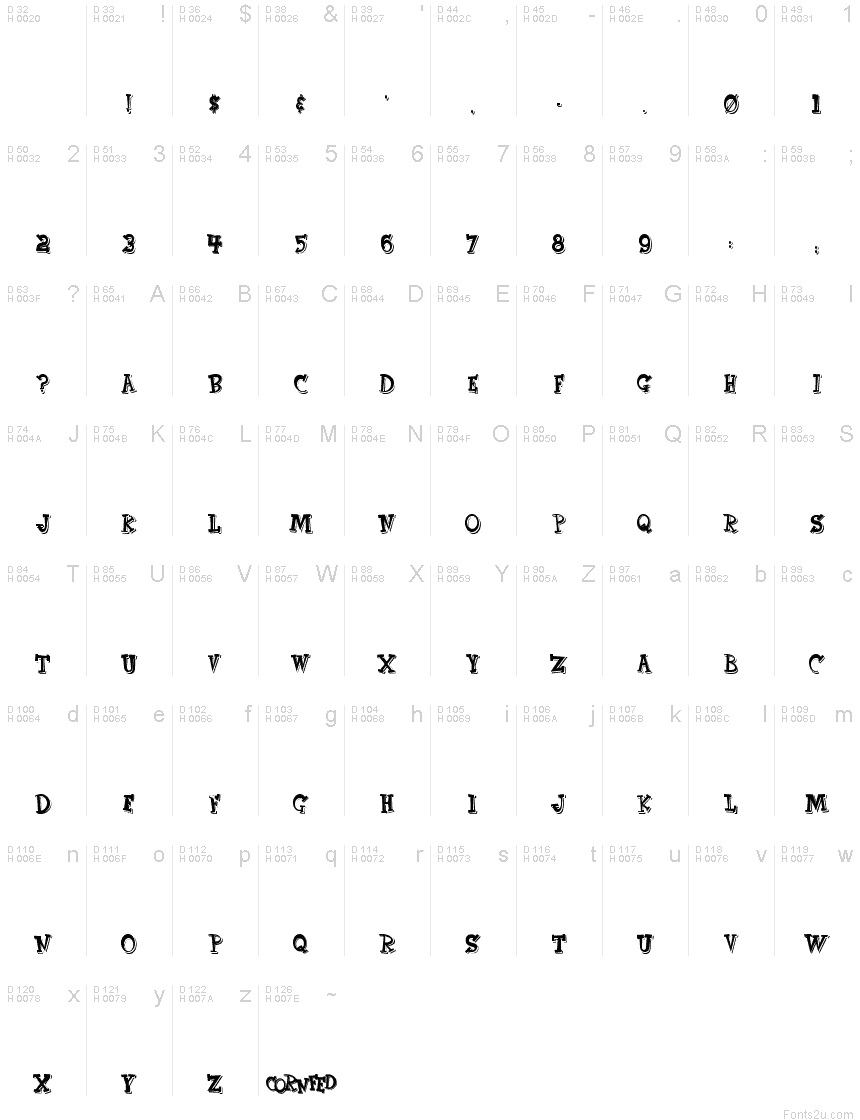
CornFed
CornFed font by J.F.Y.Daniel Gauthier of GautFonts is a free comic typeface that looks like it was hand-lettered on a diner chalkboard after a long, loud night. Each letter leans, tilts, and swells with chunky outlines and loose, inky inner strokes, giving words a jittery, animated bounce. The result is loud, friendly, and a little unruly—just enough chaos to feel fun, not messy.
Using CornFed, this free font shines on retro posters, food packaging, bar or café menus, festival branding, kids’ event graphics, and bold social media titles. Its uneven rhythm pulls the eye across the line, so it thrives in short, punchy phrases rather than long blocks of text. Pair CornFed with a clean, narrow sans serif for body copy and let this groovy font grab the headline spotlight at larger sizes.